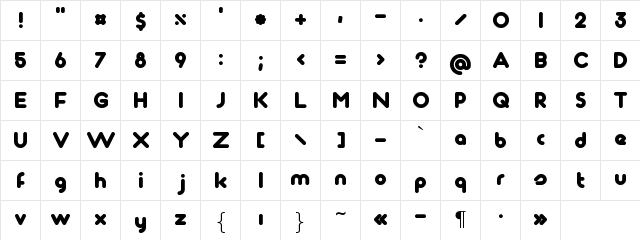
Tondo Regular
Design Context for Tondo Typeface
Tondo takes a measured approach to typography — its balanced proportions and neutral character make it a reliable workhorse for both digital and print work.